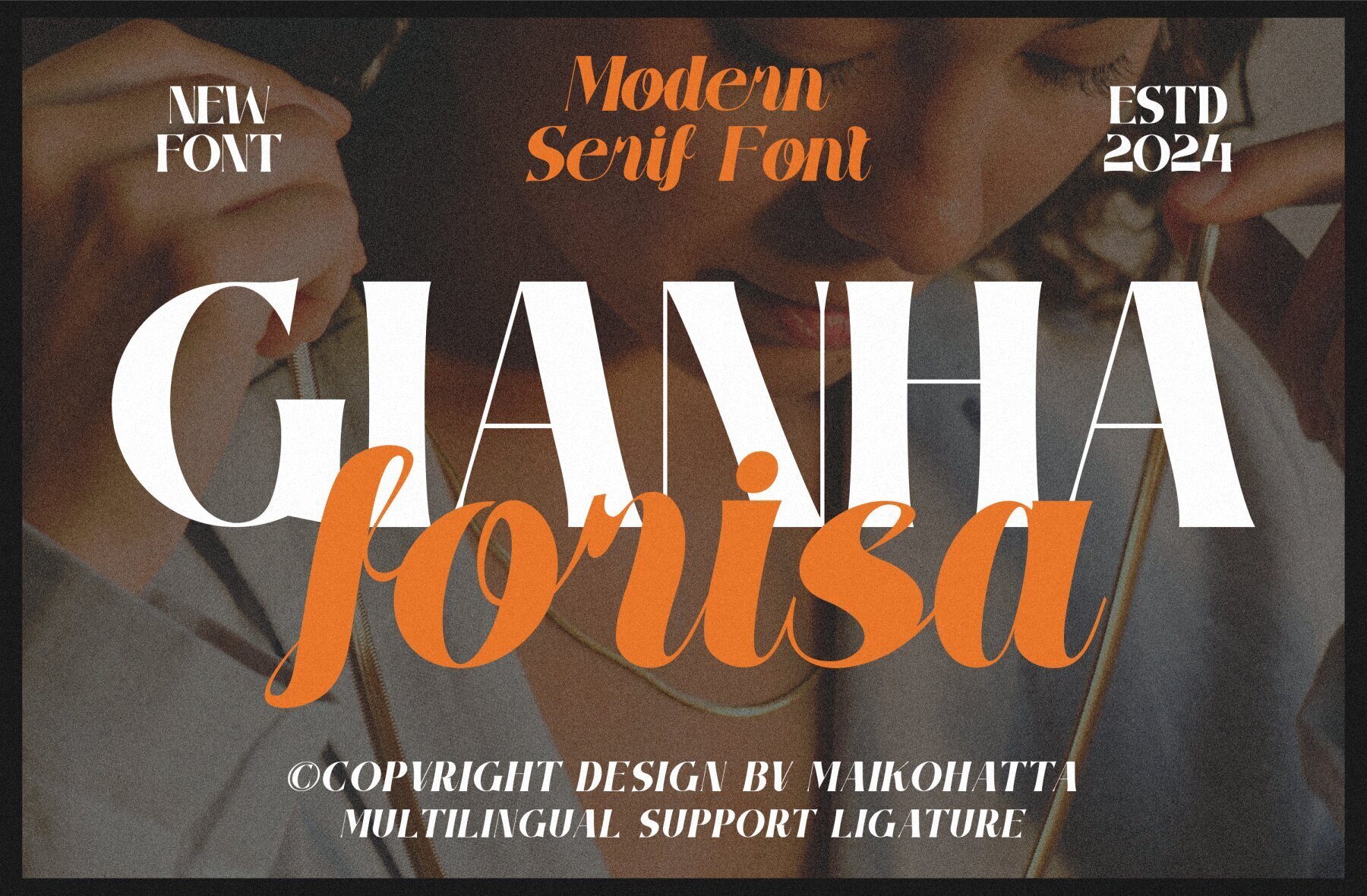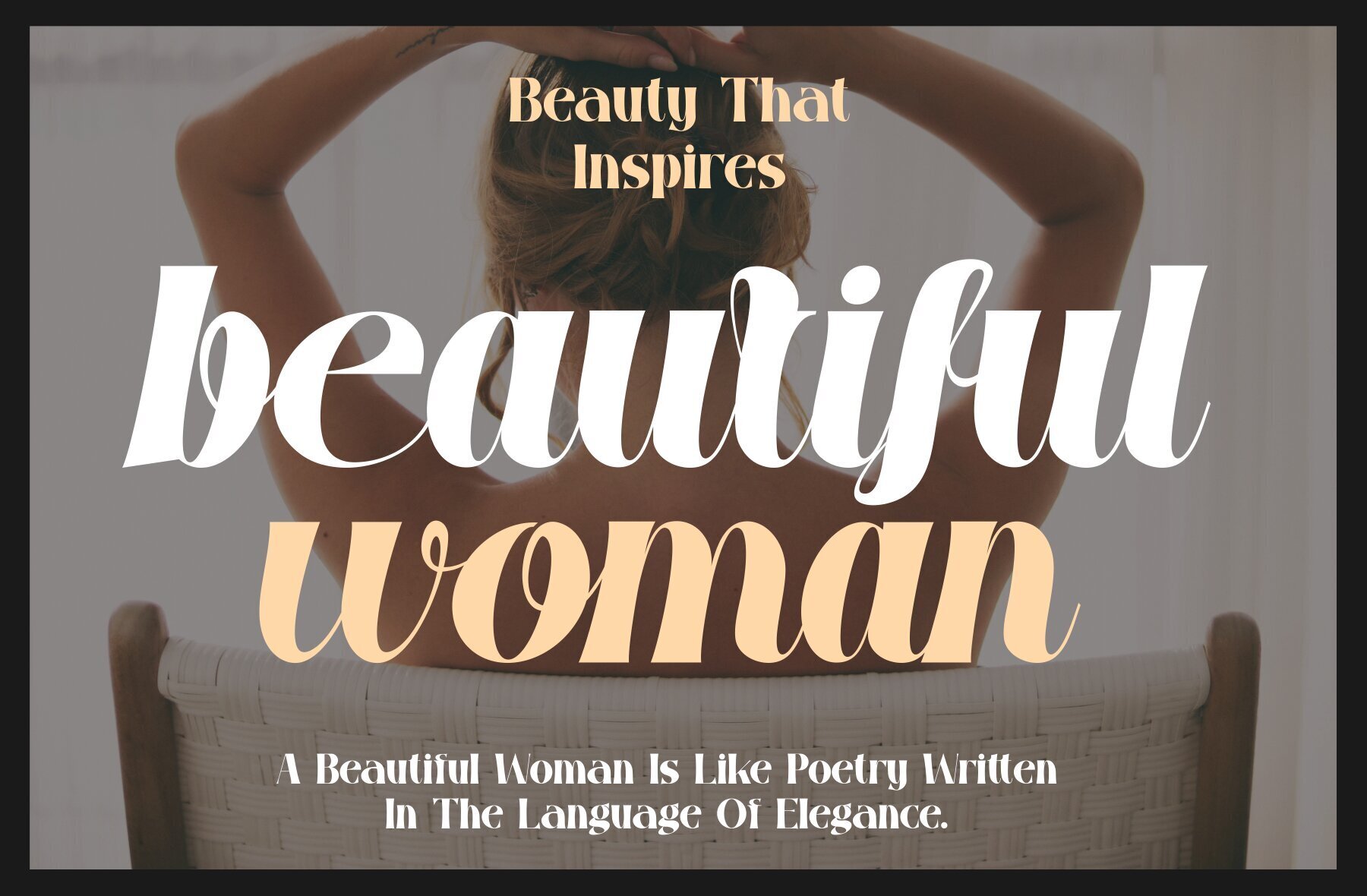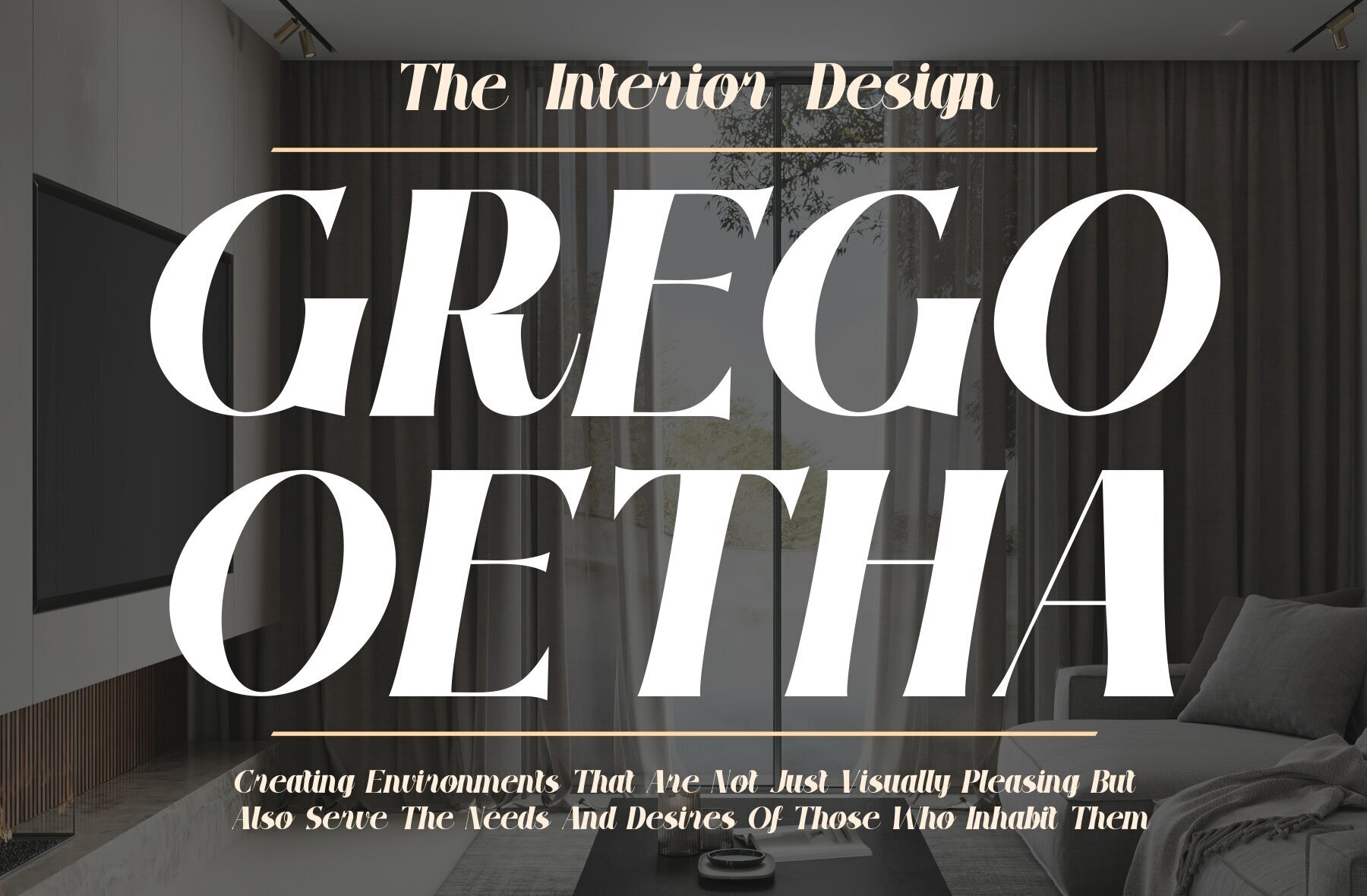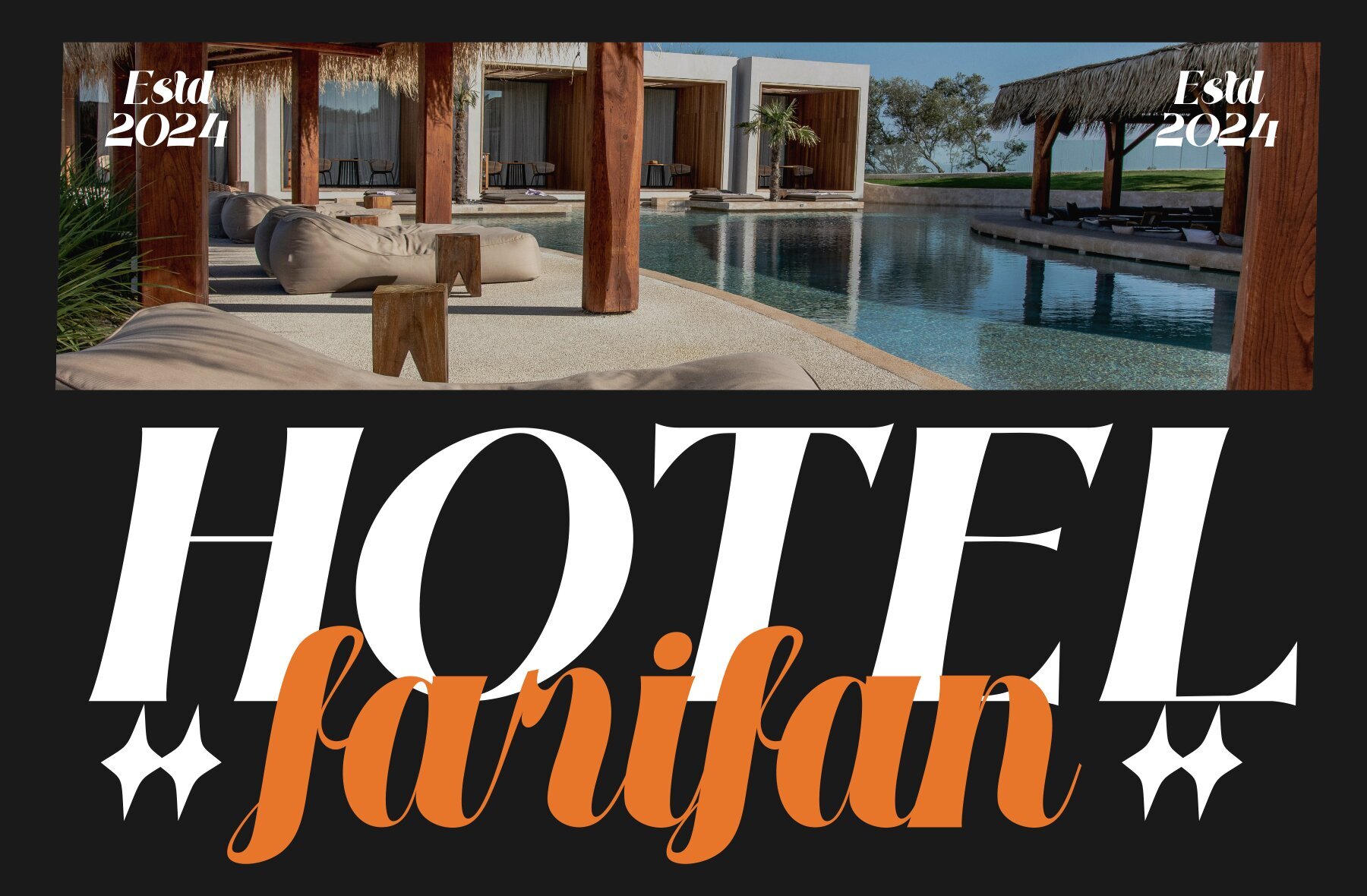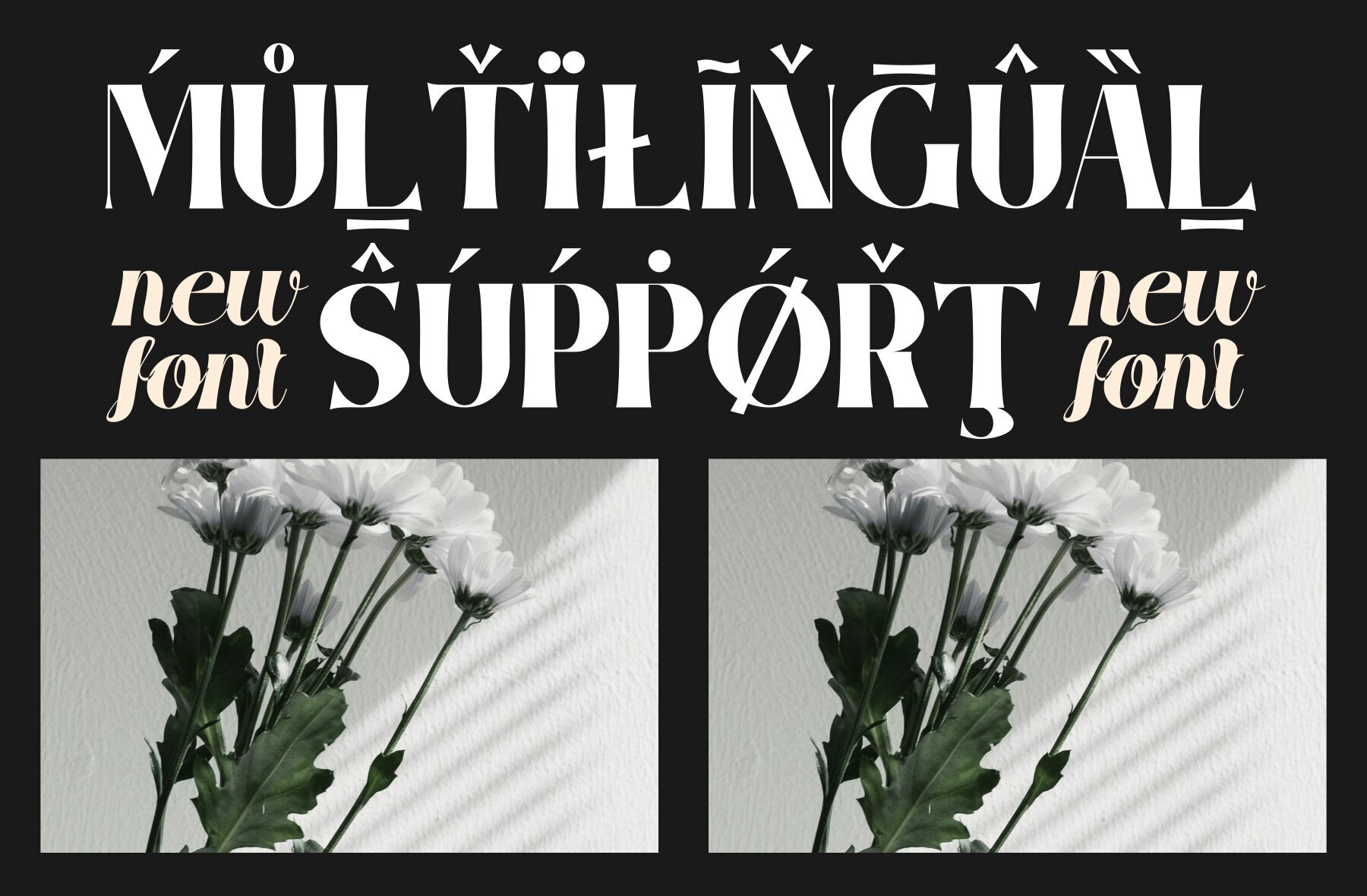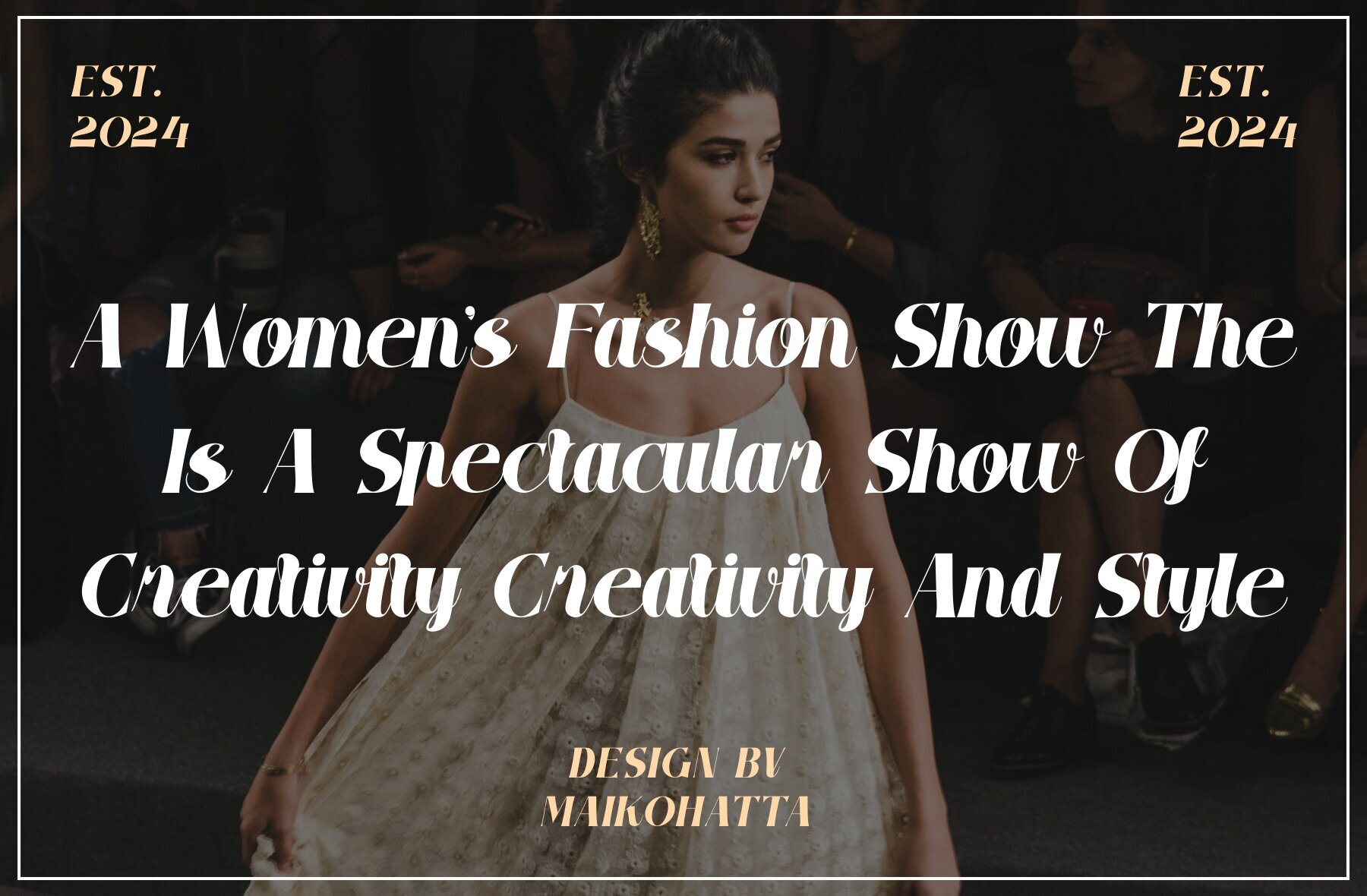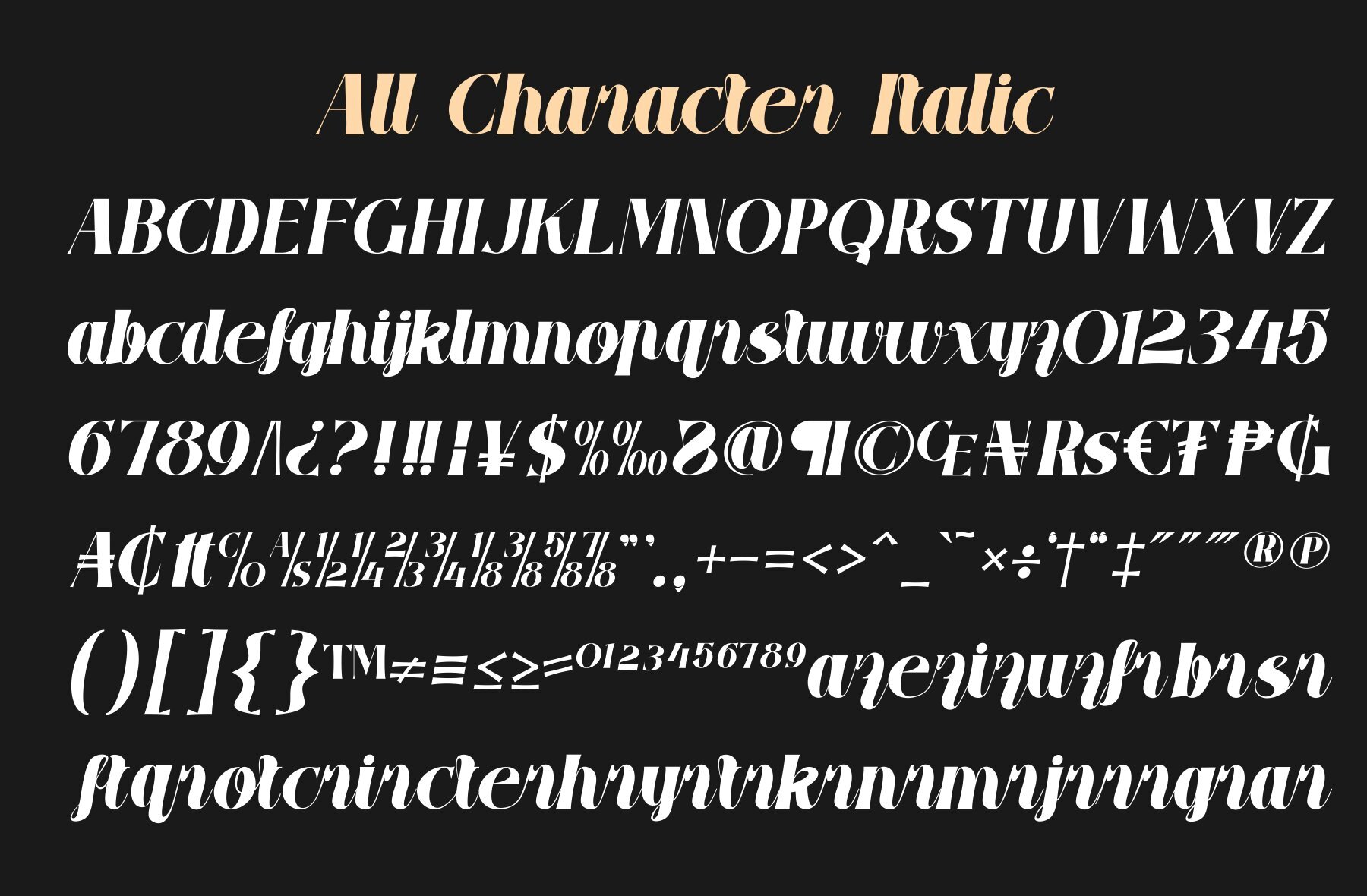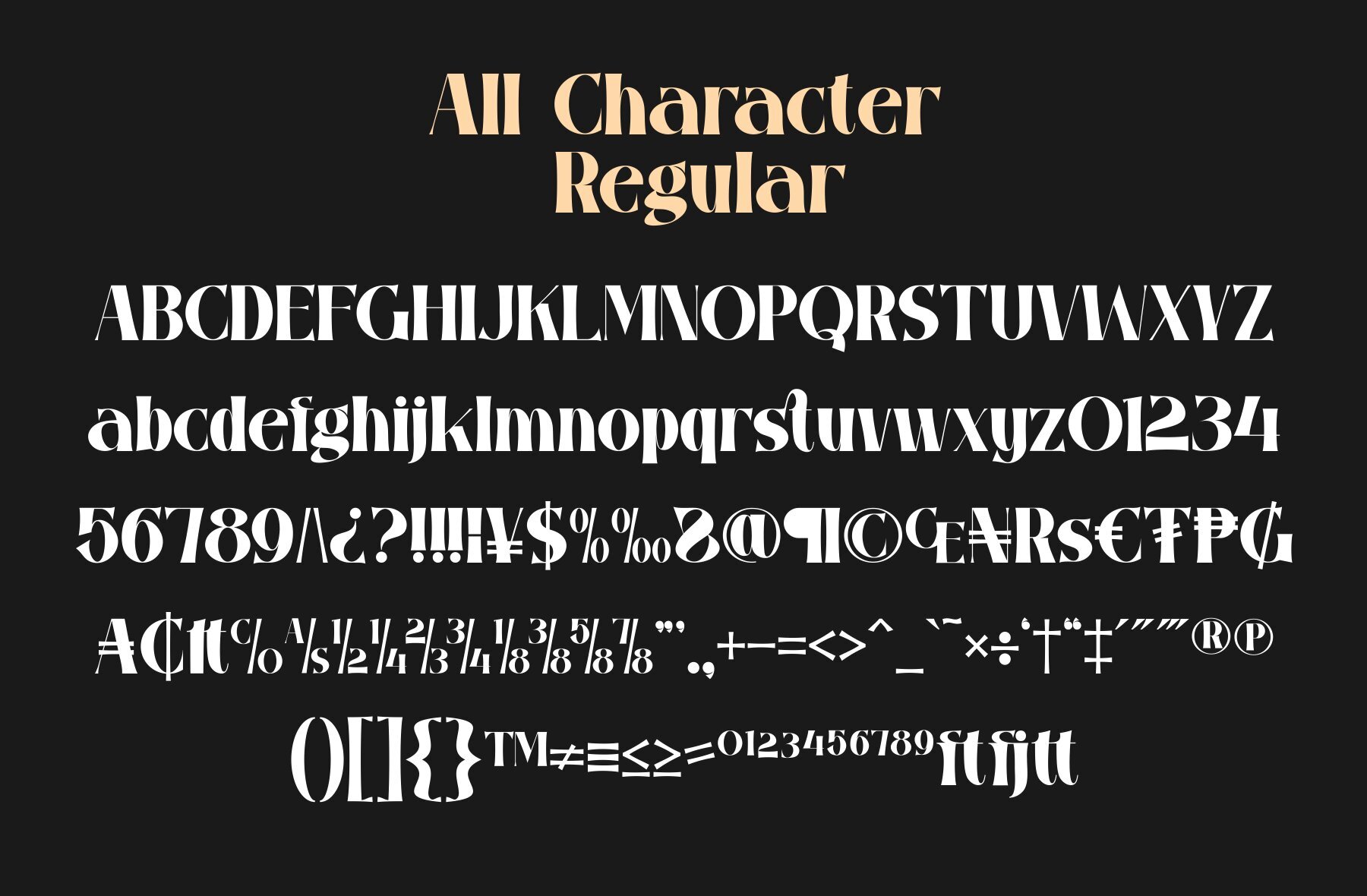
Gianha Forisa Font
The Gianha Forisa font offers a modern take on the classic serif. With its precise balance between stroke thickness and delicacy, it creates visuals that are both attractive and highly legible. This font stands out through its pronounced contrast between thick and thin lines, offering a refined yet noticeable touch.Gianha Forisa: A Contemporary Serif Font With Balanced Contrast